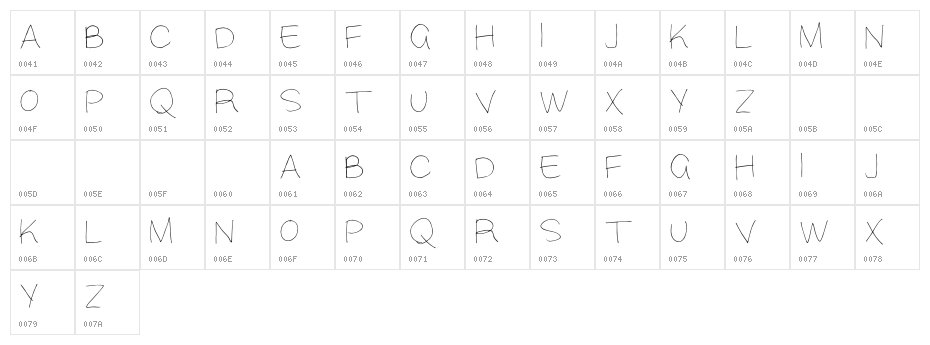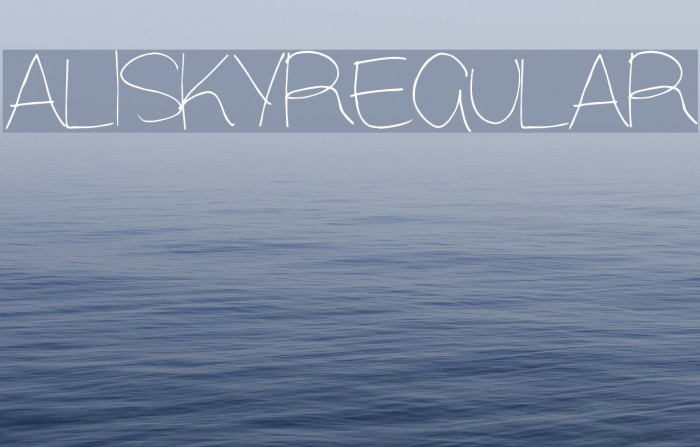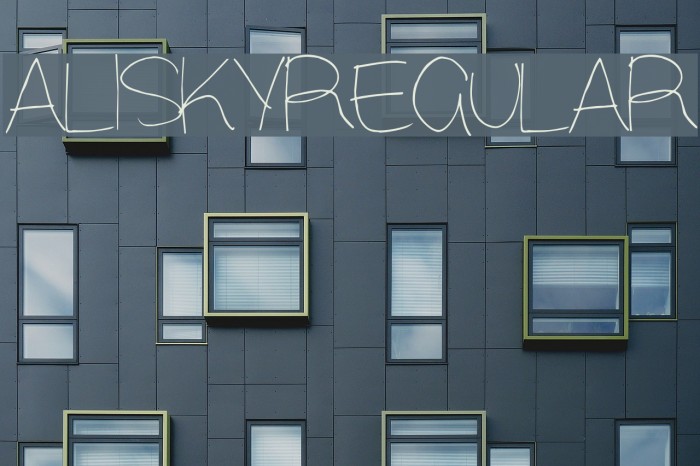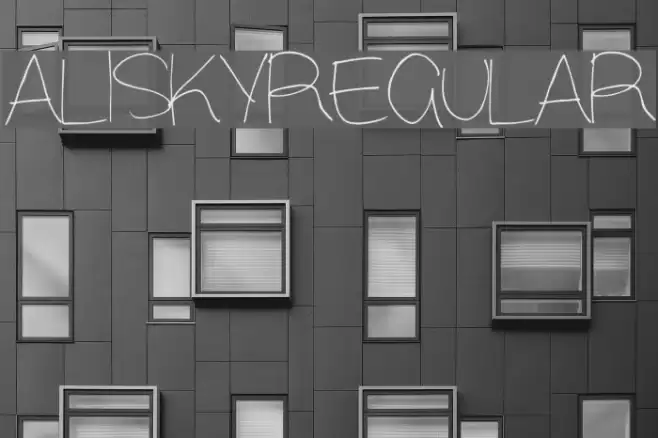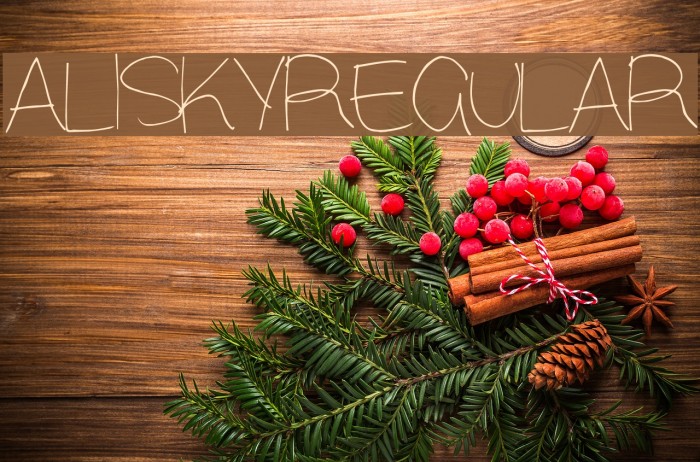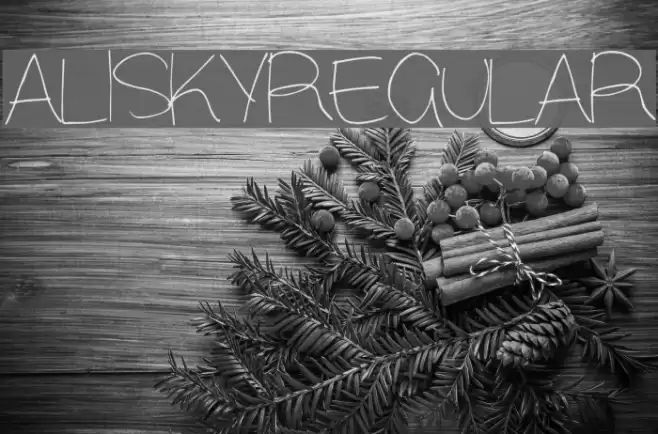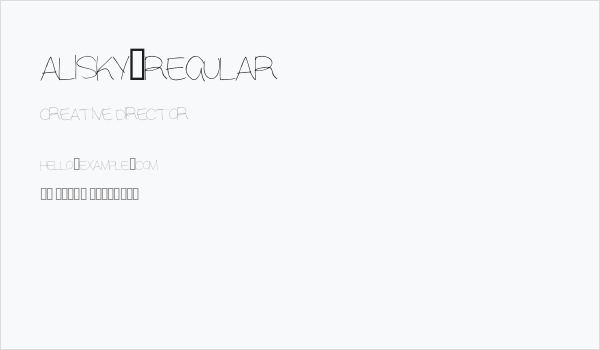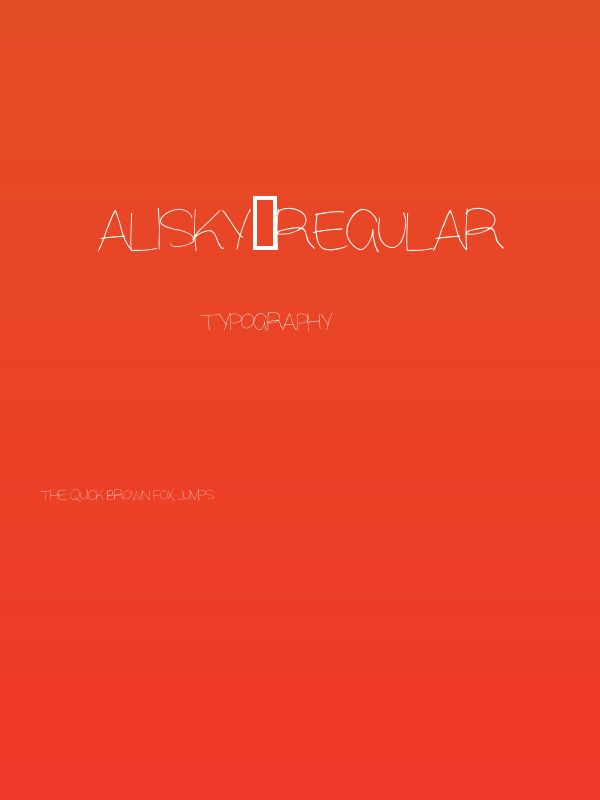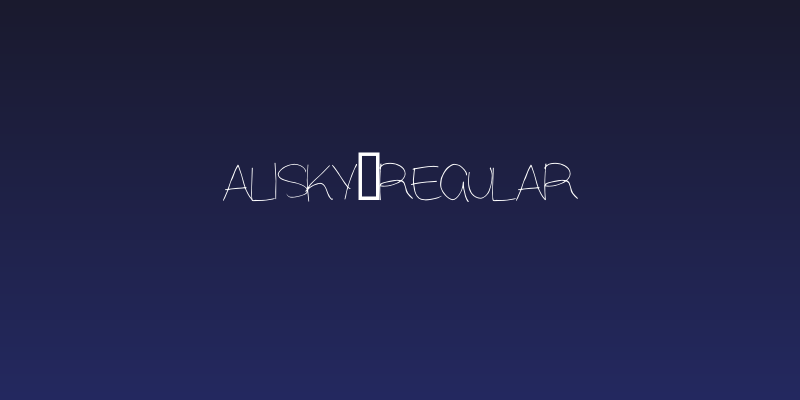
Alisky-Regular Font
Alisky-Regular Description
This font features a playful, handwritten style with a casual and informal appearance. The letters are slightly irregular, giving it a personal touch that mimics natural handwriting. The strokes are thin and consistent, with a slight tilt that adds to its dynamic feel. The uppercase and lowercase letters maintain a cohesive look, while the numbers and special characters follow the same whimsical style. This font is ideal for projects that require a personal or creative touch, such as invitations, greeting cards, or artistic branding.
| Use Case | Headlines, Artistic projects, Personal notes |
| Proposed Projects | Ideal for invitations, greeting cards, artistic branding, and creative projects. |